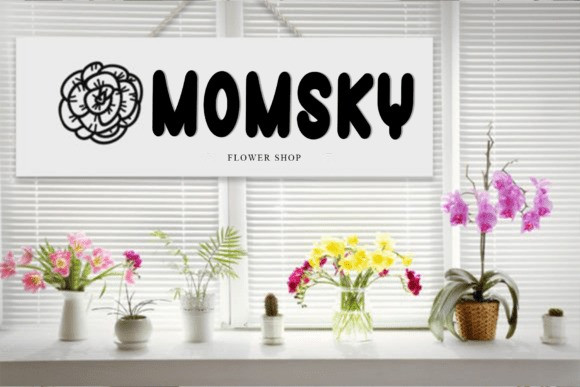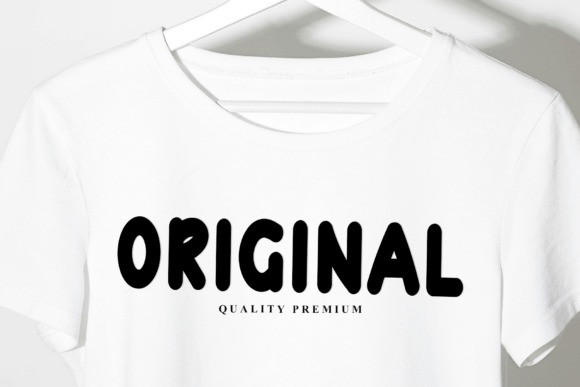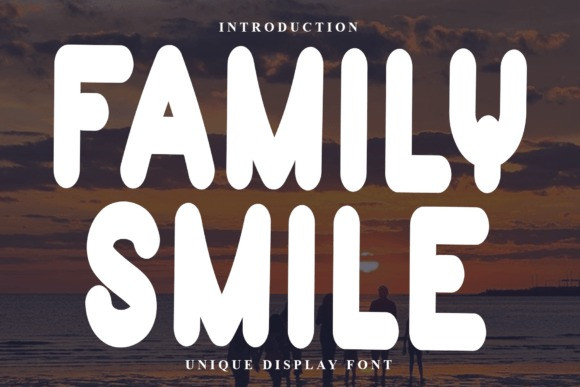
Family Smile Font
Family Smile Font is an ultra-chunky, rounded, and playful unique display font. Its massive, exaggerated letterforms have soft edges, giving it an extremely friendly, approachable, and cartoonish aesthetic. The font is designed for maximum visual impact and cheer. This typeface is perfect for children’s products, family event posters, casual apparel, impactful headlines, and any project that needs a strong, fun, and memorable visual statement.